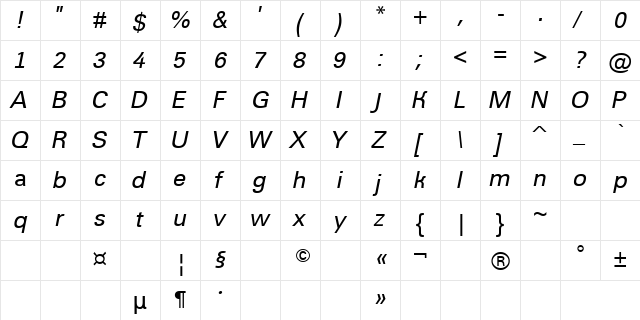
a_Grotic Italic
Design Context for a_Grotic Typeface
a_Grotic is a composed and adaptable typeface that performs quietly and consistently across a wide range of design contexts. The slanted form adds forward momentum and visual energy.
Pro Tip: Use a_Grotic for emphasis, pull quotes, and subheadings where its slanted energy can add rhythm to the layout.